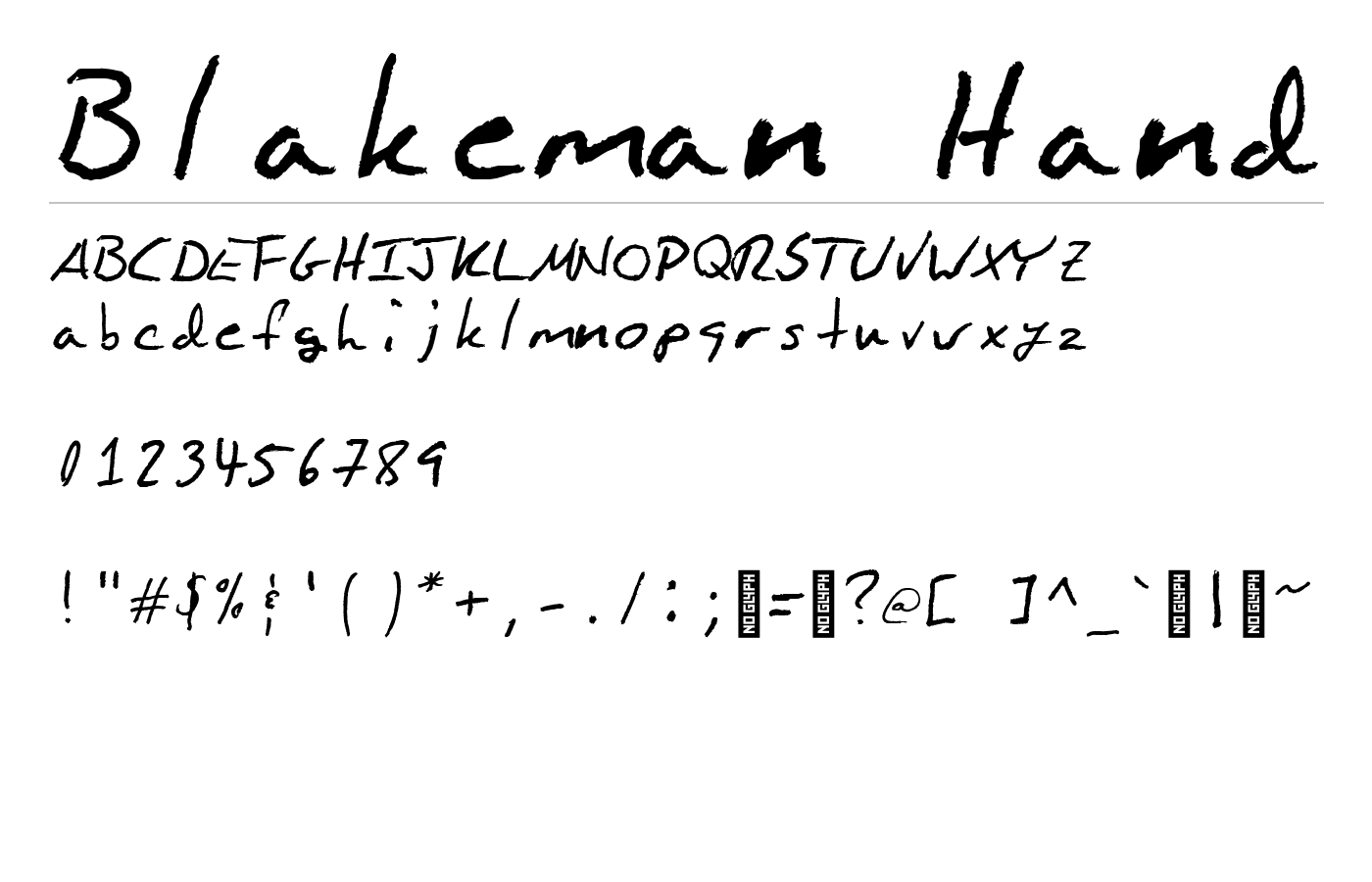
Blakeman Hand is a casual, handwritten script font that features a lively and natural style, with irregular strokes and slightly rough edges that mimic real penmanship. Its light weight and airy spacing give it a friendly, personal feel, making it perfect for informal branding, creative projects, and invitations that need an authentic, approachable touch. This font works well where a genuine human element is desired, such as in social media graphics, greeting cards, and lifestyle blogs.